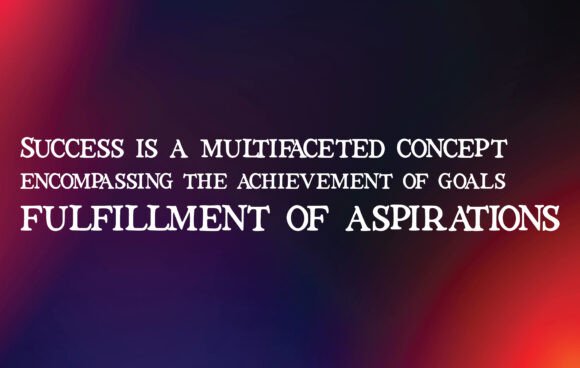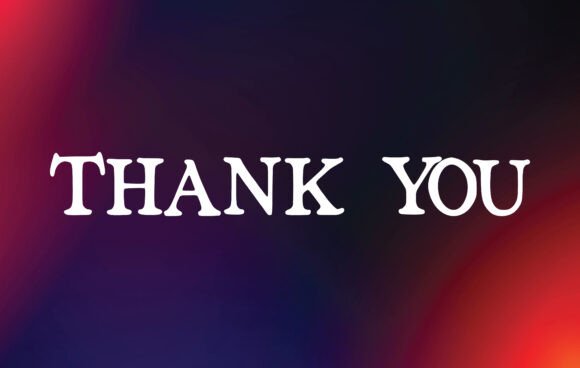
Austin Font: Elevate Your Creative Ideas with this Lovely and Beautiful Typeface
Are you a designer or crafter looking for a font that can take your creative ideas to the next level? Look no further than the Austin Font. This stunning typeface has the potential to elevate your designs and make them truly unforgettable. In this article, we’ll dive into the features and benefits of the Austin Font, and explore why it’s the perfect choice for creating eye-catching logos, branding, and quotes.
What is Austin Font?
Austin Font is a modern and elegant typeface that is designed to inspire creativity and sophistication. With its clean lines, beautiful curves, and unique characteristics, this font is sure to make a statement in any design project. Whether you’re working on a logo, branding materials, or social media graphics, the Austin Font is a versatile and reliable choice.
Key Features of Austin Font
- Unique and Creative Design: The Austin Font boasts a distinctive and stylish design that sets it apart from other typefaces. Its elegant curves and lines make it perfect for creating sophisticated and eye-catching designs.
- Highly Versatile: This font is incredibly versatile and can be used for a wide range of design projects, from logos and branding to quotes and social media graphics.
- Easily Readable: Despite its elegant design, the Austin Font is highly readable, even at small sizes. This makes it perfect for use in body text, captions, and other applications where legibility is key.
- Supports Multiple Languages: The Austin Font supports multiple languages, making it a great choice for designers and crafters who work with international clients or want to create designs that appeal to a global audience.
Why Choose Austin Font?
So why should you choose the Austin Font for your design projects? Here are just a few compelling reasons:
- Stand Out from the Crowd: With its unique and stylish design, the Austin Font can help your designs stand out from the crowd and grab attention.
- Elevate Your Brand: If you’re looking to create a professional and sophisticated brand identity, the Austin Font is an excellent choice. Its elegant design and versatility make it perfect for use in logos, branding materials, and more.
- Perfect for Quotes and Social Media Graphics: The Austin Font is also a great choice for creating eye-catching quotes and social media graphics. Its clean lines and elegant curves make it perfect for use in inspirational quotes, motivational posters, and other types of visual content.
How to Use Austin Font in Your Designs
Using the Austin Font in your designs is easy. Here are a few tips to get you started:
- Pair it with Other Fonts: The Austin Font works well when paired with other fonts, especially sans-serif fonts like Arial or Helvetica. Experiment with different font combinations to create unique and interesting designs.
- Experiment with Colors and Textures: The Austin Font looks great in a variety of colors and textures. Experiment with different colors and textures to add depth and interest to your designs.
- Use it for Headings and Titles: The Austin Font is perfect for use in headings and titles, where its elegant design and unique characteristics can really shine.
In conclusion, the Austin Font is a lovely and beautiful typeface that has the potential to take your creative ideas to the highest level. Its unique design, versatility, and readability make it perfect for creating eye-catching logos, branding, and quotes. Whether you’re a designer or crafter, the Austin Font is an excellent choice for any design project. So why not give it a try and see the difference it can make?